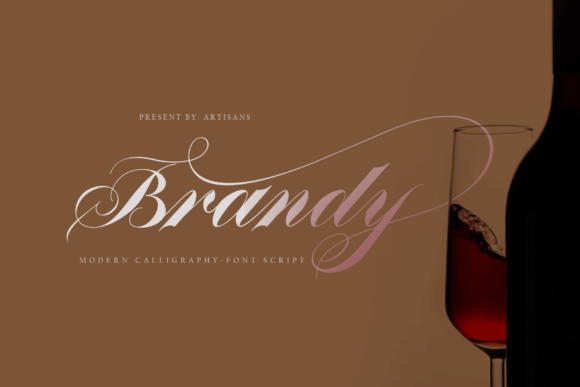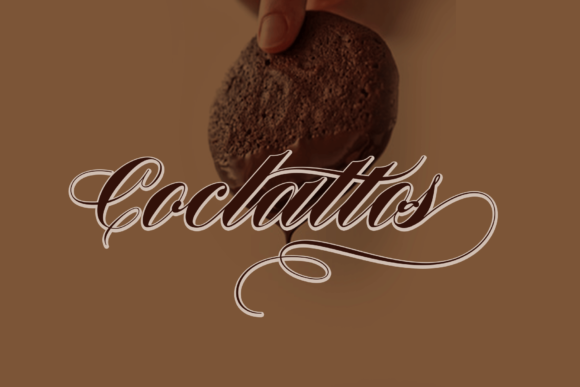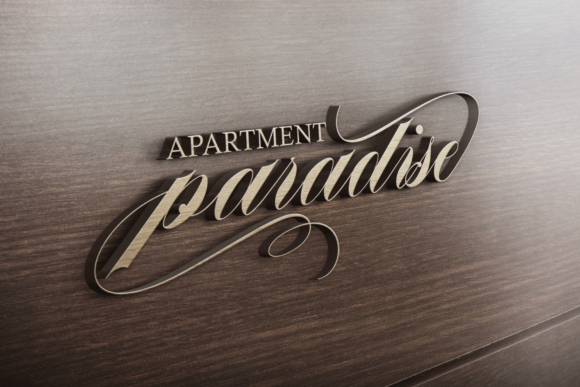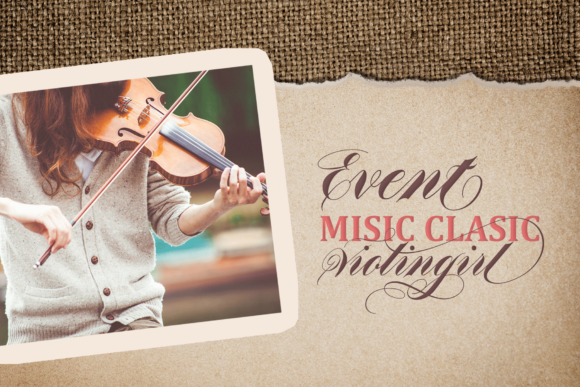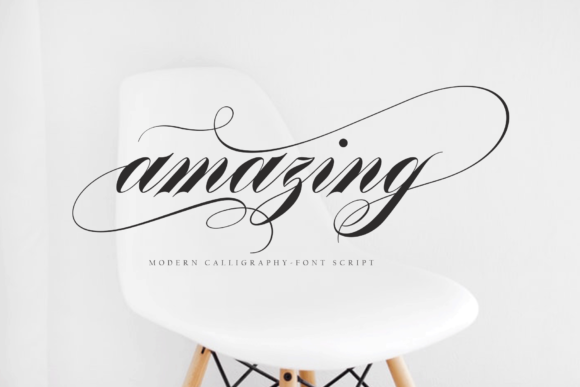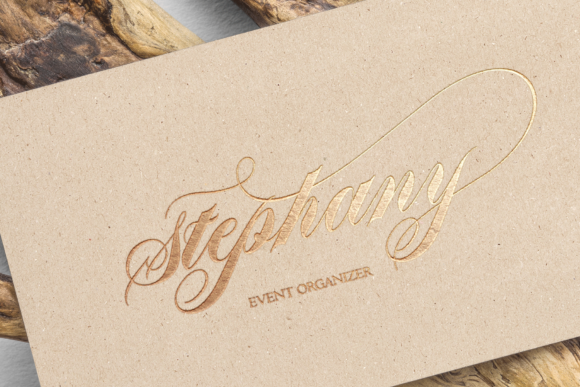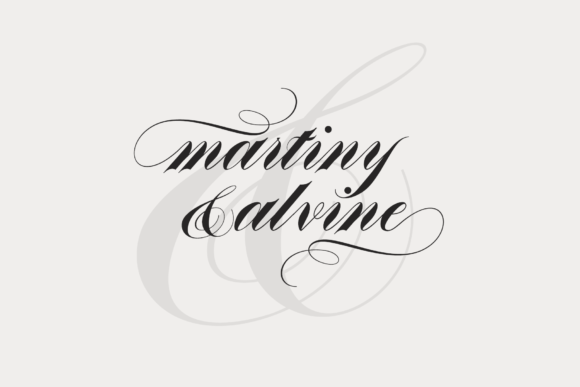
Brandy Font
About Brandy Font
Brandy is a lovely handwritten font ready to be used in your next designs. It is perfect for invitations, posters, logos, book covers and much more!